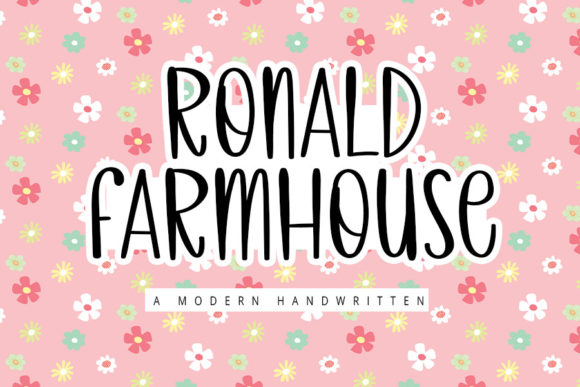
Once upon a time, in a realm where creativity danced with elegance, there lived a font family named Ronald Farmhouse. Its delicate strokes, like the caress of a gentle breeze, invite you to embrace the beauty of handwritten artistry. Inspired by the charm of modern logos, Ronald Farmhouse was crafted to transform your designs into masterpieces.
Immerse yourself in the world of Ronald Farmhouse, where each letter is a work of art, meticulously crafted to create a harmonious balance. Its unique and well-proportioned characters make it a visual delight, capturing the essence of sophistication and grace. The font's versatility knows no bounds, allowing you to weave your creative magic across a tapestry of design possibilities.
With Ronald Farmhouse as your creative companion, you can craft enchanting logos that speak volumes about your brand's identity. Its captivating curves and graceful lines will leave a lasting impression, making your designs truly unforgettable. From sleek and contemporary logos to timeless and elegant designs, Ronald Farmhouse adapts effortlessly, like a chameleon navigating through a kaleidoscope of styles.
Ronald Farmhouse's allure extends beyond logos. Its enchanting script lends itself beautifully to wedding invitations, greeting cards, and branding materials, adding a touch of personal charm to every creation. Imagine your words dancing across the page, imbued with the elegance of Ronald Farmhouse, carrying your message with a touch of artistry that captivates and inspires.